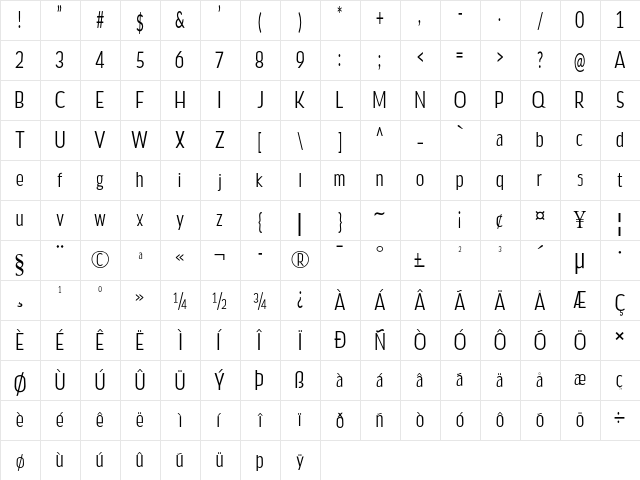
delicious font Regular
Design Context for delicious font Typeface
delicious font offers clean, dependable letterforms without strong stylistic allegiance, making it a practical choice for designers who need flexibility.